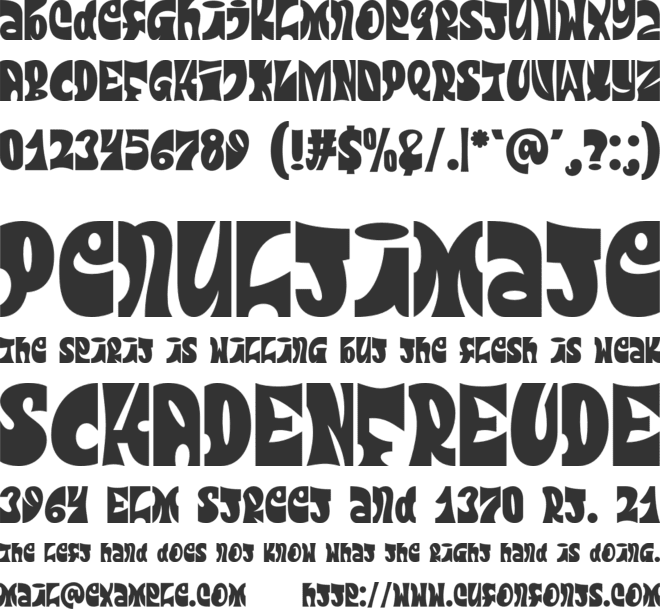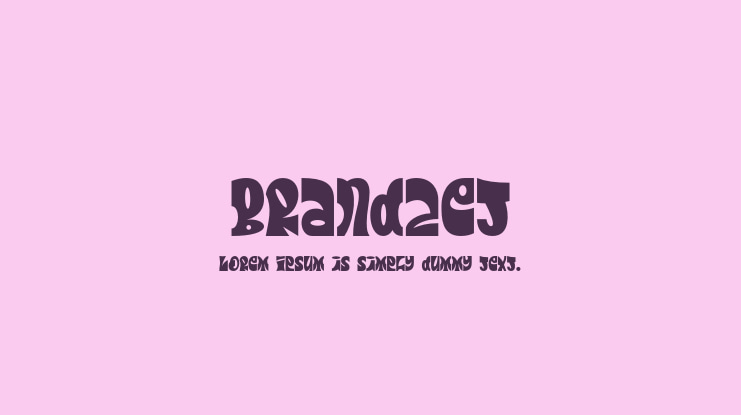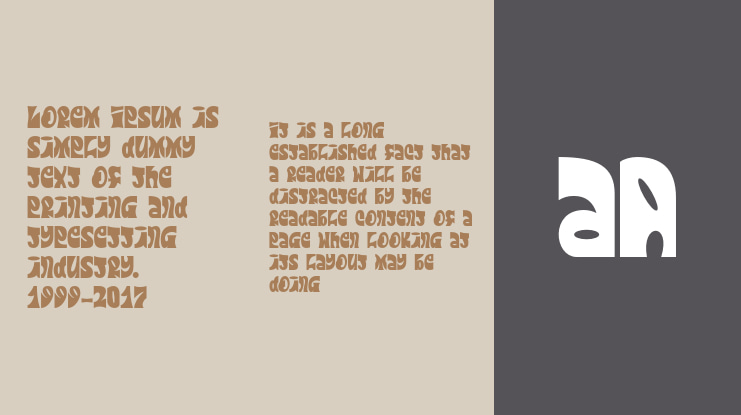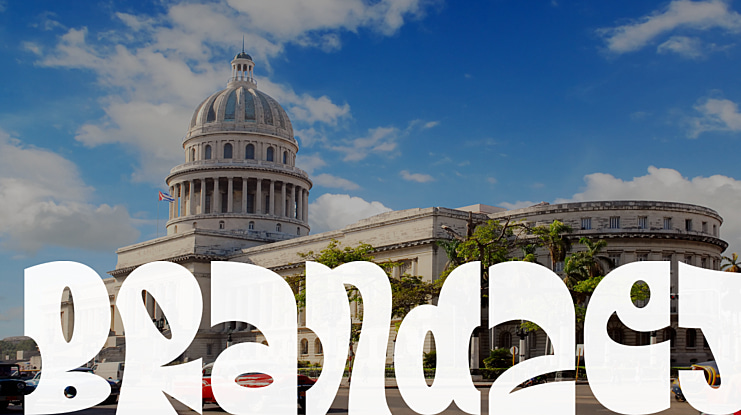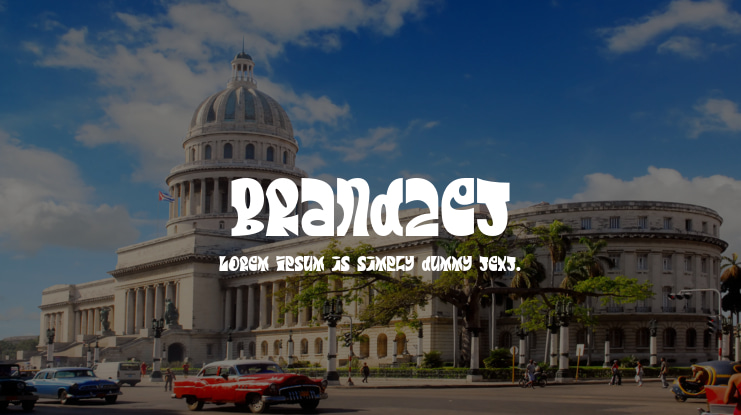
Brandzet Font
Brandzet is a unique display font. Its random shape makes it outstanding and great for titles. This type of font is perfectly made to be applied to logos, headlines, labels, logos, magazines, books, packaging, fashion, makeup, stationery, novels, labels, or any type of advertising purpose.